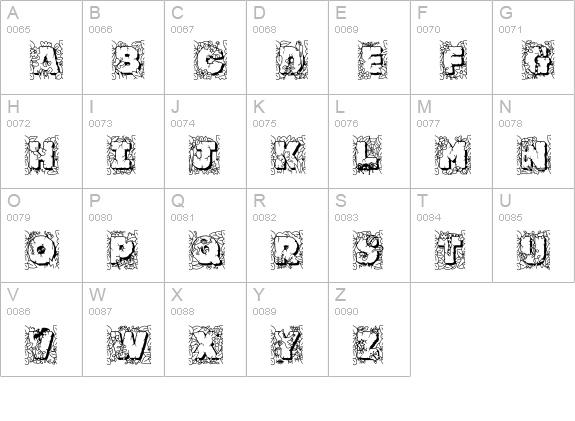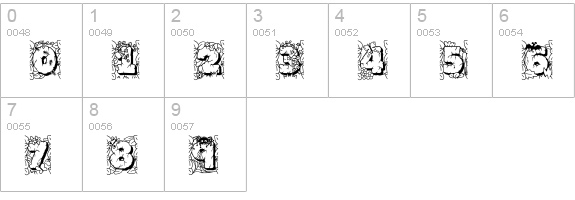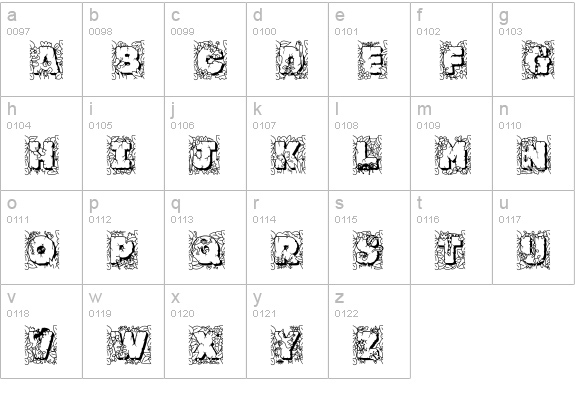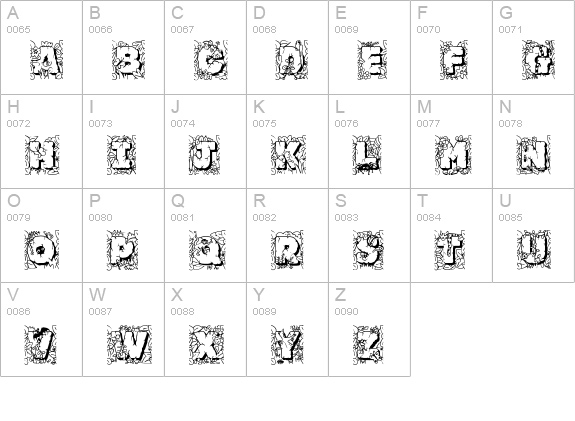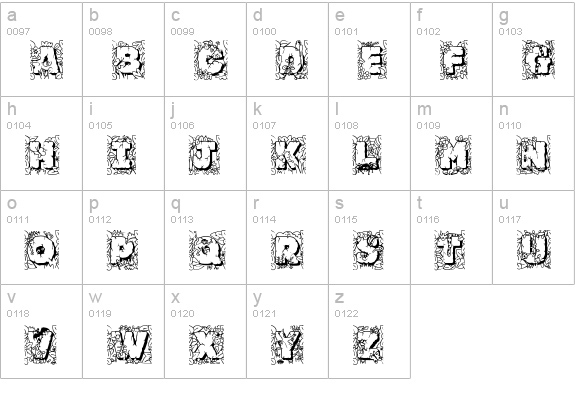
JFJungleRock Font Details
Introducing JFJungleRock, a captivating and adventurous font that brings the wild spirit of the jungle to your designs. This typeface is a perfect blend of ruggedness and elegance, making it an ideal choice for projects that require a touch of untamed beauty. Designed with meticulous attention to detail, JFJungleRock features bold and dynamic letterforms that evoke the strength and energy of the jungle. Its organic and flowing shapes reflect the lush foliage and untrodden paths of this majestic landscape, creating a truly immersive typographic experience. But what truly sets JFJungleRock apart is its versatility and accessibility. This remarkable font is freely available to download at FontsMarket.com, allowing designers, creatives, and enthusiasts alike to harness its power and unleash their wildest ideas without any constraints. Whether you're working on a nature-inspired branding project, an adventurous poster, or a captivating book cover, JFJungleRock will breathe life into your designs. Its carefully crafted characters will transport your audience to far-off lands, inviting them to explore the depths of the unknown and embark on an unforgettable typographic journey. With JFJungleRock, you have the freedom to express your creativity and push the boundaries of design. Its wide range of weights and styles provides endless possibilities, allowing you to find the perfect balance between untamed energy and refined aesthetics. So, why wait? Immerse yourself in the untamed beauty of JFJungleRock and let your creativity roam free. Download this extraordinary font today at FontsMarket.com and embark on a typographic adventure like no other.